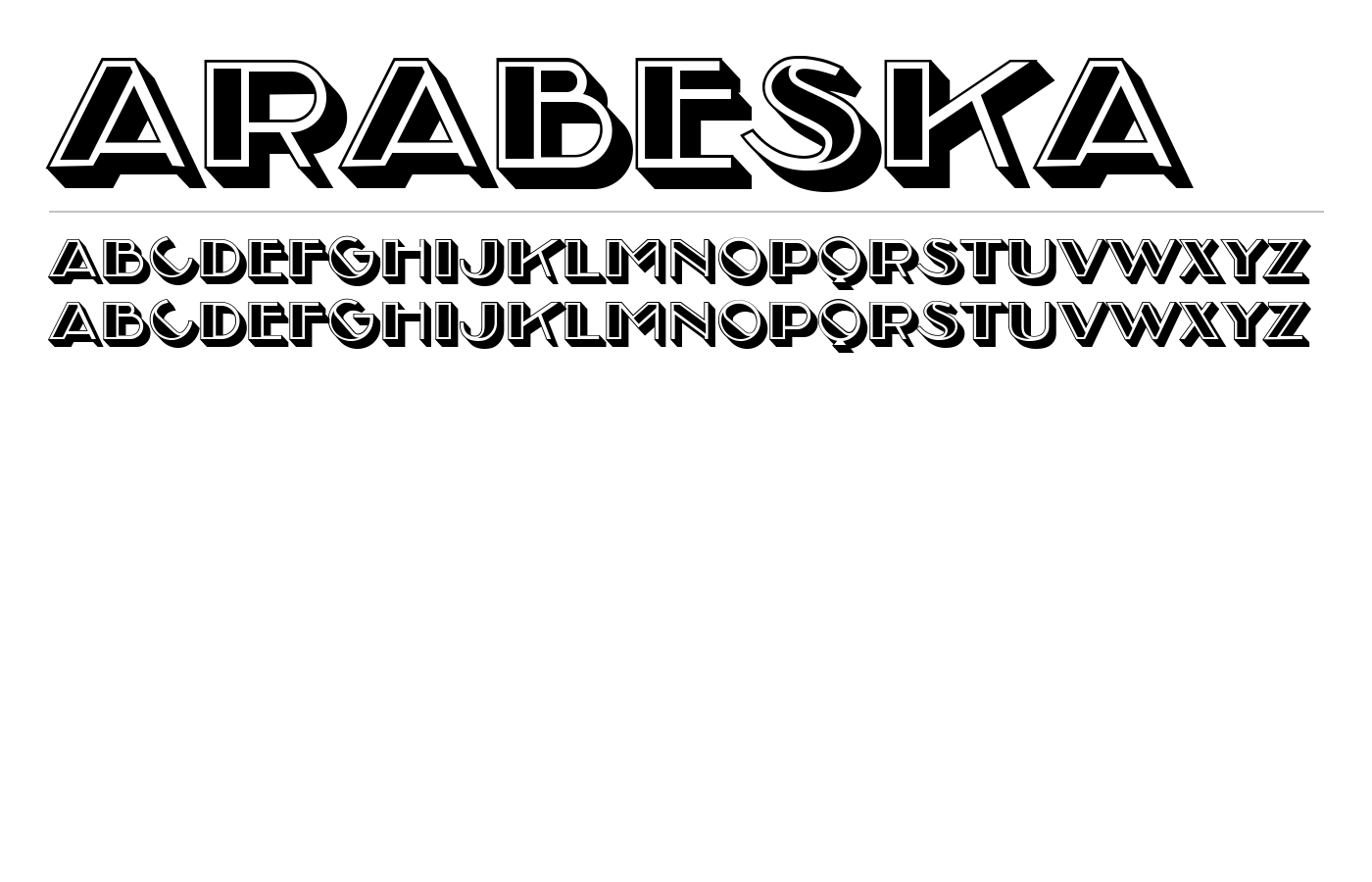
Arabeska is a bold, decorative sans serif font characterized by its strong geometric forms and striking three-dimensional shadow effect. Its uppercase letters feature unique angular cuts and contrasts, giving it a dynamic, vintage-art-deco feel that works brilliantly for eye-catching headlines, logos, and display uses where a bold, stylish statement is needed. This font is perfect for branding and designs that want to communicate energy, flair, and a touch of retro sophistication.
Arabeska Font
About Arabeska Font